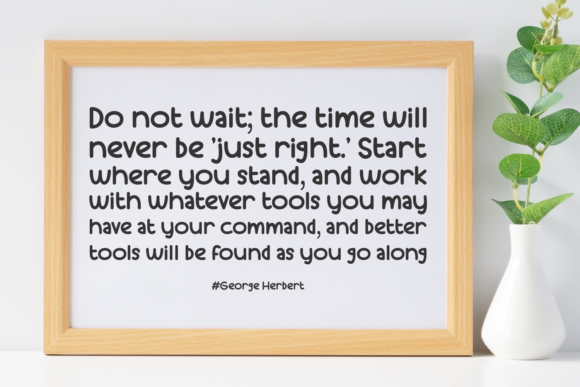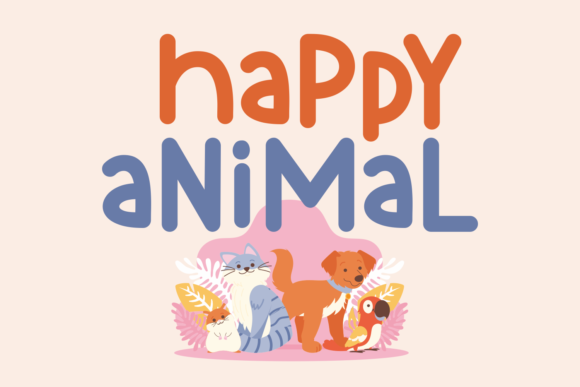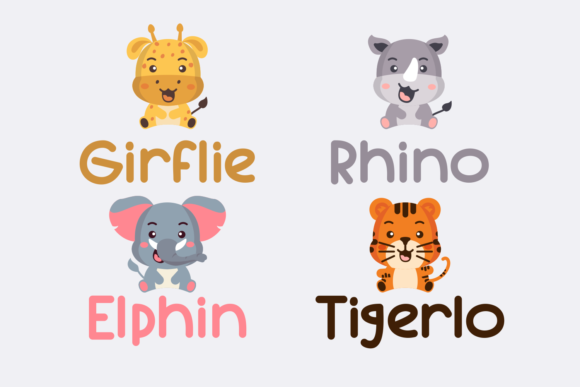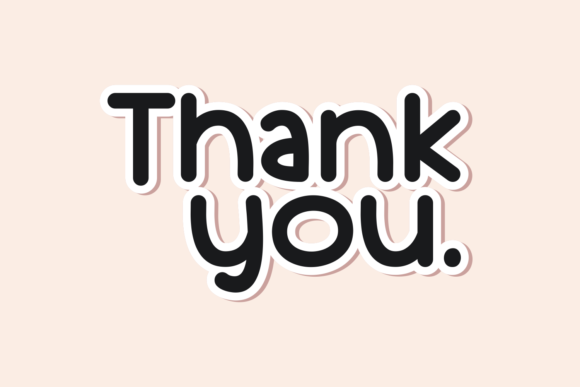
Introduction to Melion Font
Remember that moment when you’re brainstorming ideas for your next creative project and you stumble upon the perfect font to bring your design to life? For many designers, finding that special font can be the turning point that sets their project apart from the rest. For those in search of a font that exudes warmth and authenticity, the Melion Font is a game-changer.
With its unique, handwritten style, the Melion Font is perfect for adding a personal touch to your designs, whether you’re creating chalkboard quotes, teaching materials, or any other type of educational content. Its high-quality design ensures that your project will look polished and professional, making it an invaluable resource for designers of all levels.
Key Features of Melion Font
- High-resolution design, suitable for use in print and digital applications
- Unique, modern design style with a professional aesthetic
- Perfect for use in logos, branding, and other design elements
Honest Review: Melion Font
As a designer, I’ve had the pleasure of working with various design resources, and I’m excited to share my thoughts on the Melion Font. This font is perfect for any creative project that requires a touch of elegance and sophistication.
- ✨ High quality design that’s perfect for both print and digital projects
- ✨ Beautifully crafted letters with a transparent background, making it easy to work with
- ✨ Great for creating a cohesive brand identity, with its clean and modern design
Overall, I’m impressed with the Melion Font. It’s a great addition to any designer’s toolkit, and its free download makes it an attractive option for designers on a budget. While it may have some limitations, its high quality design and transparent background make it a great choice for creative projects.
Melion Font
The Melion Font is a high-quality design resource ideal for various creative projects. It’s available for free download and features a transparent background, making it versatile for use in different contexts.
Tips for Getting the Most Out of Melion Font
For optimal results, use the Melion Font in conjunction with other design elements, such as images and graphics, to create visually appealing compositions. Experiment with different font sizes and styles to achieve the desired effect.
The Melion Font is suitable for a wide range of creative projects, including:
- Logo designs
- Infographics and presentations